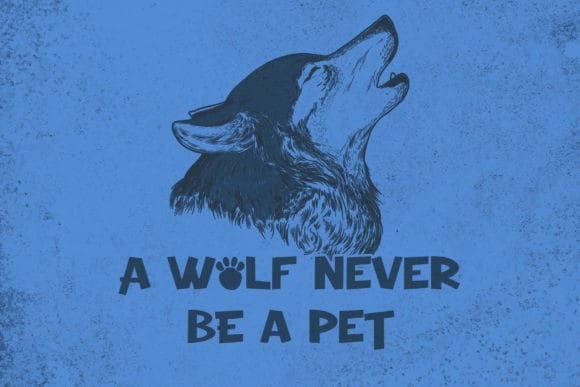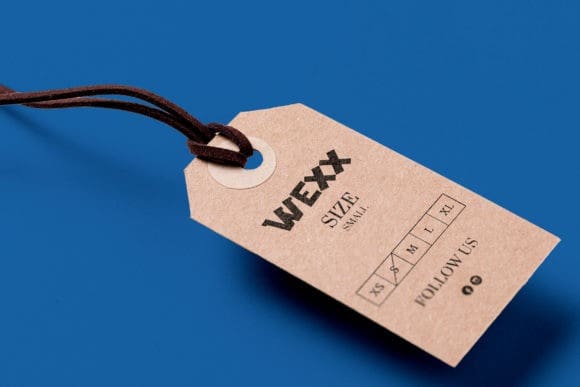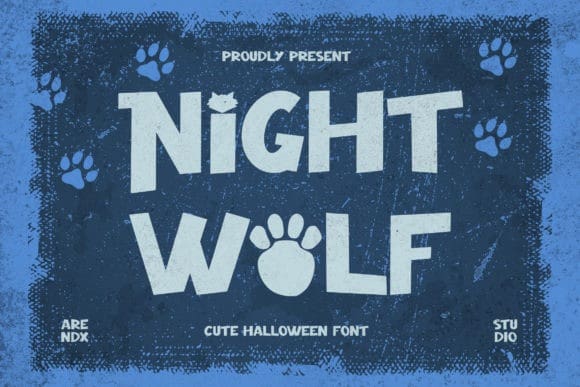
Night Wolf Font
Night Wolf Font is a cute, fun and friendly display font. No matter the topic, this font will be an incredibly asset to your fonts’ library, as it has the potential to elevate any creation.